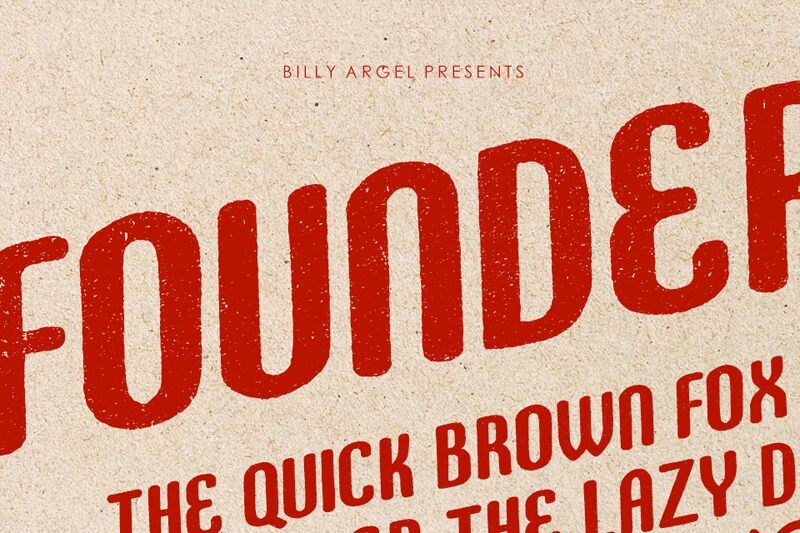
FOUNDER Bold is an edgy and dynamic display font designed by Billy Argel Fonts. With its eroded style, this semi-bold typeface adds a raw and gritty touch to any project.
Its extra-condensed width allows for efficient use of space, making it ideal for headlines, posters, and album covers that require a bold statement. FOUNDER Bold brings a rebellious energy to branding campaigns, magazine layouts, and website designs seeking a distinctive look.
Embrace the power of this unique font to create visually captivating projects that demand attention.